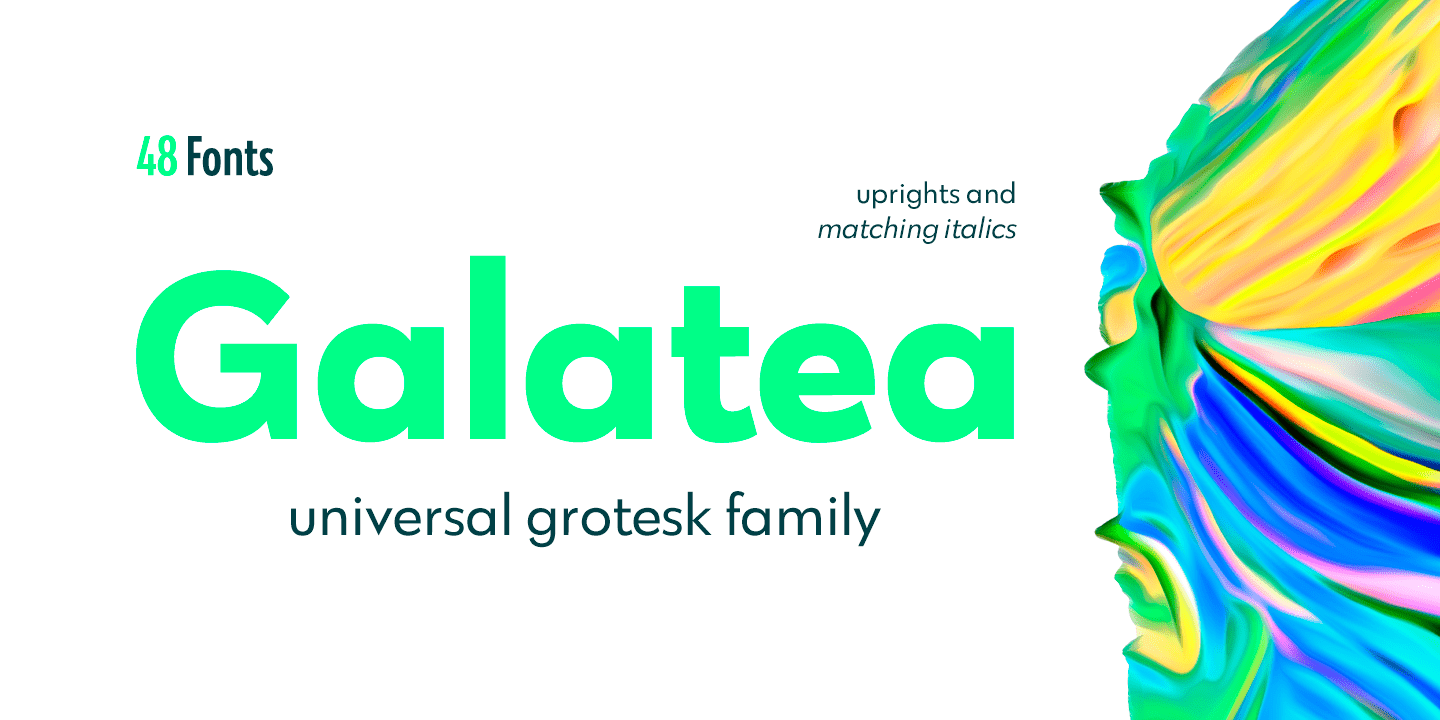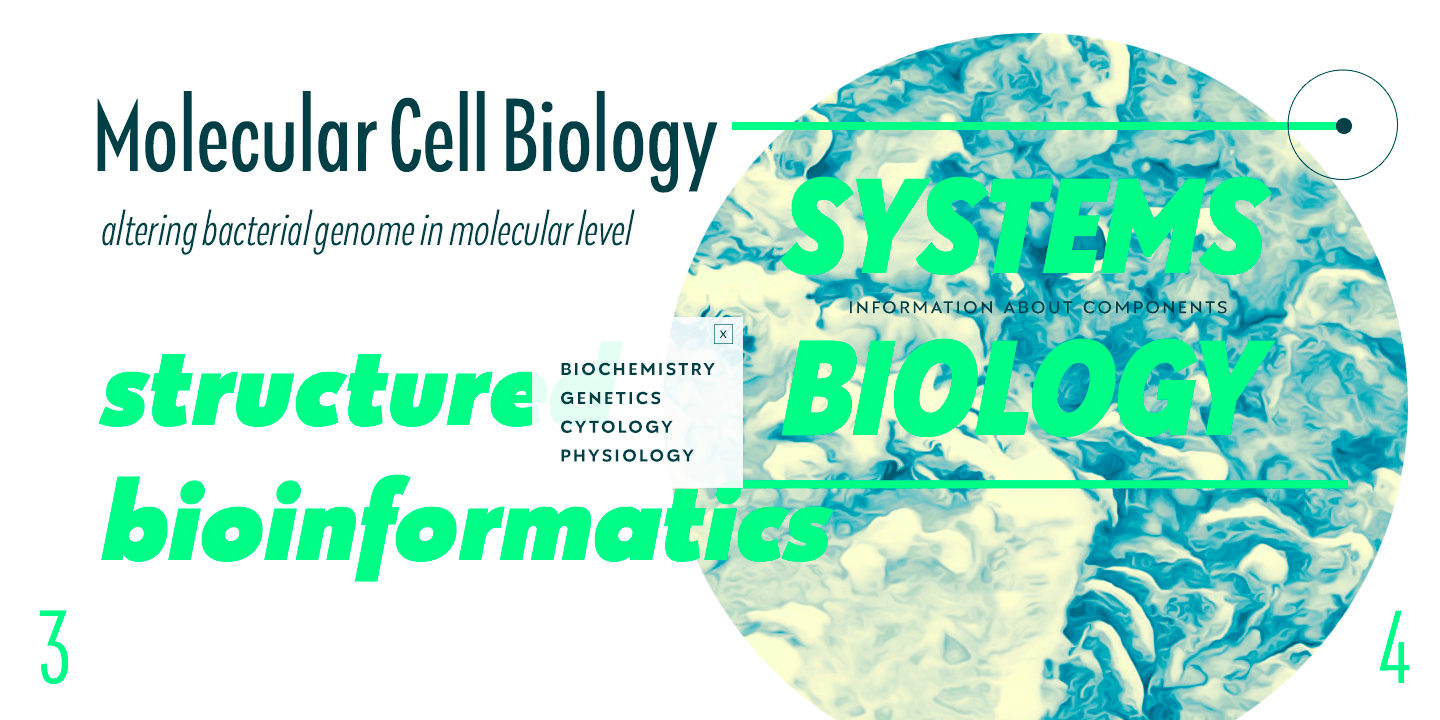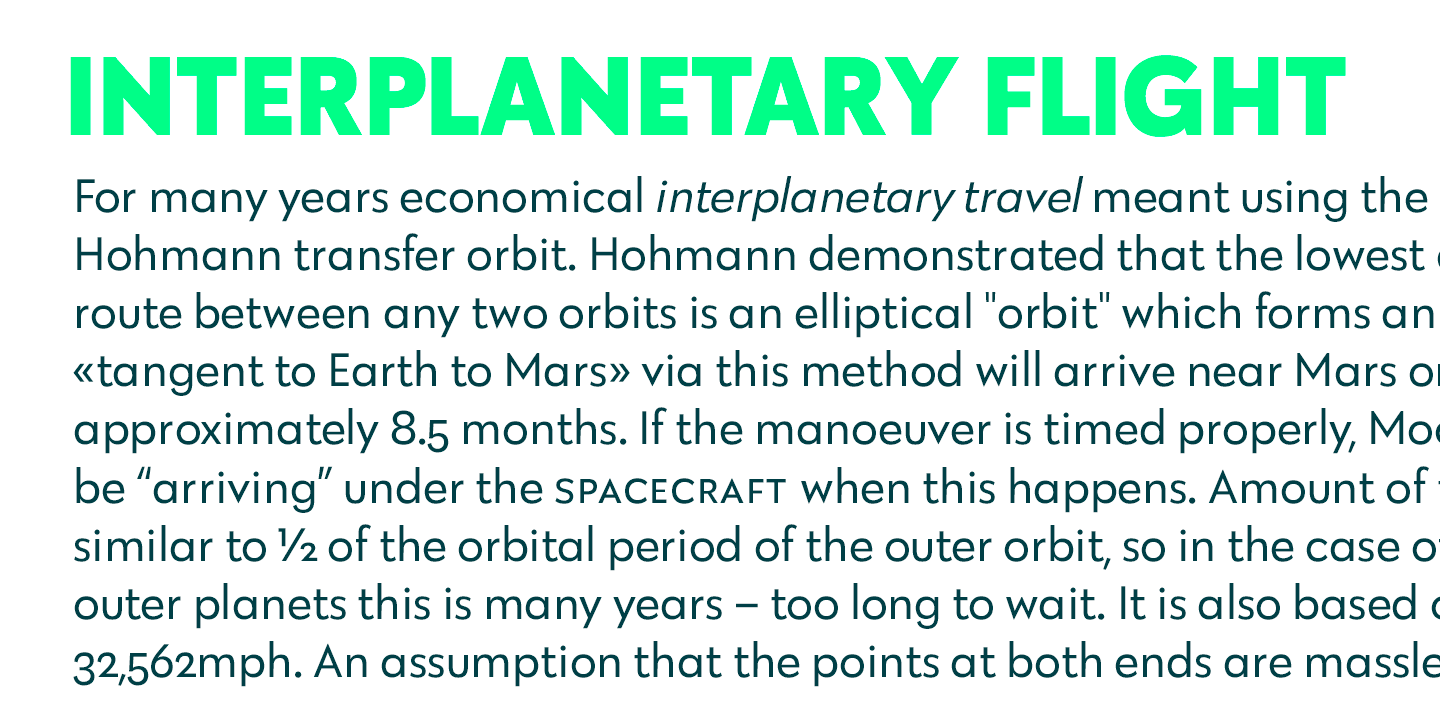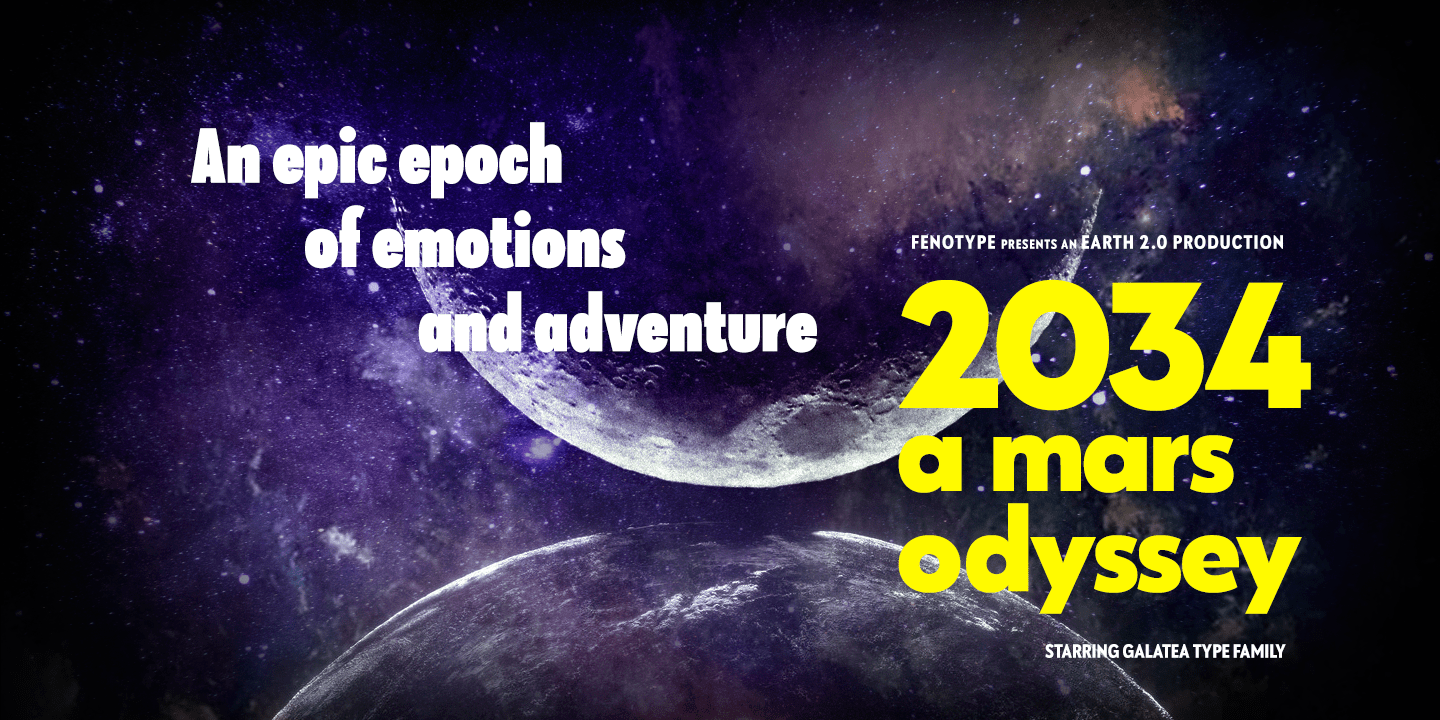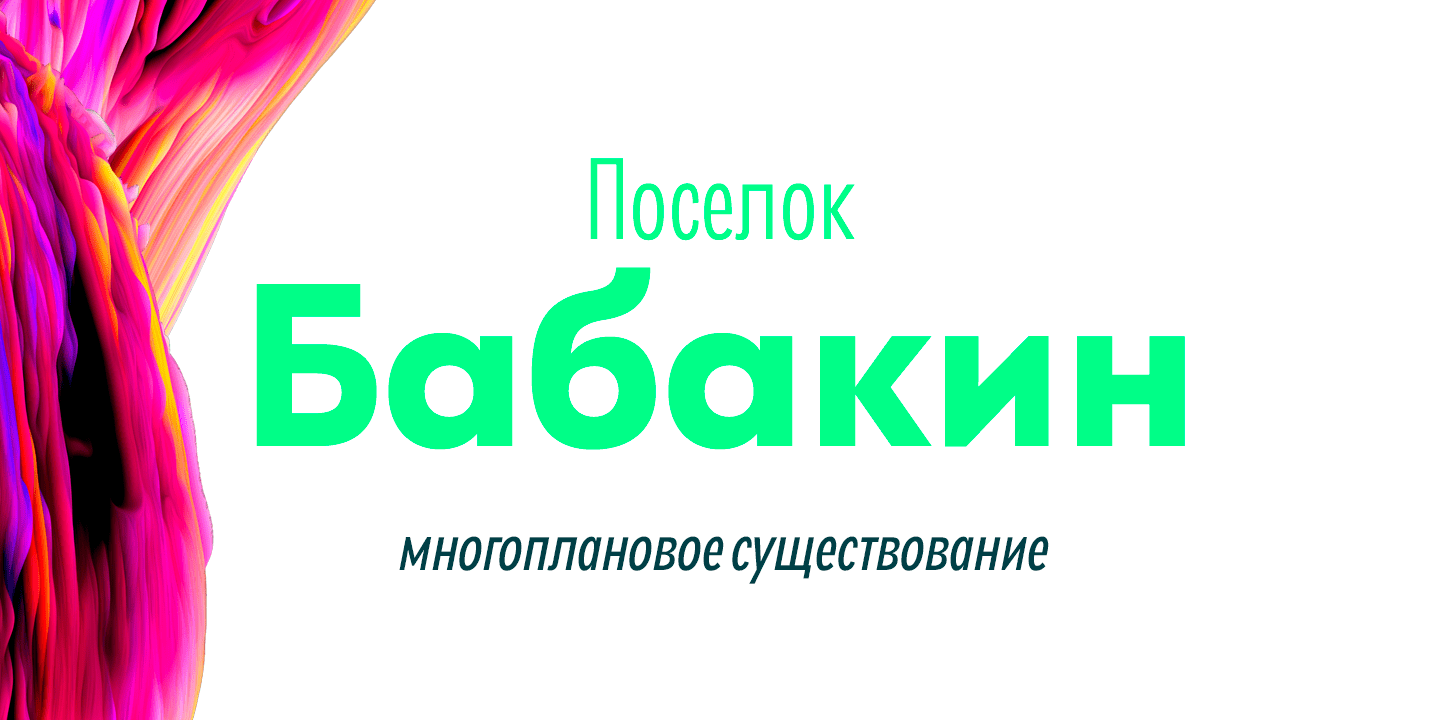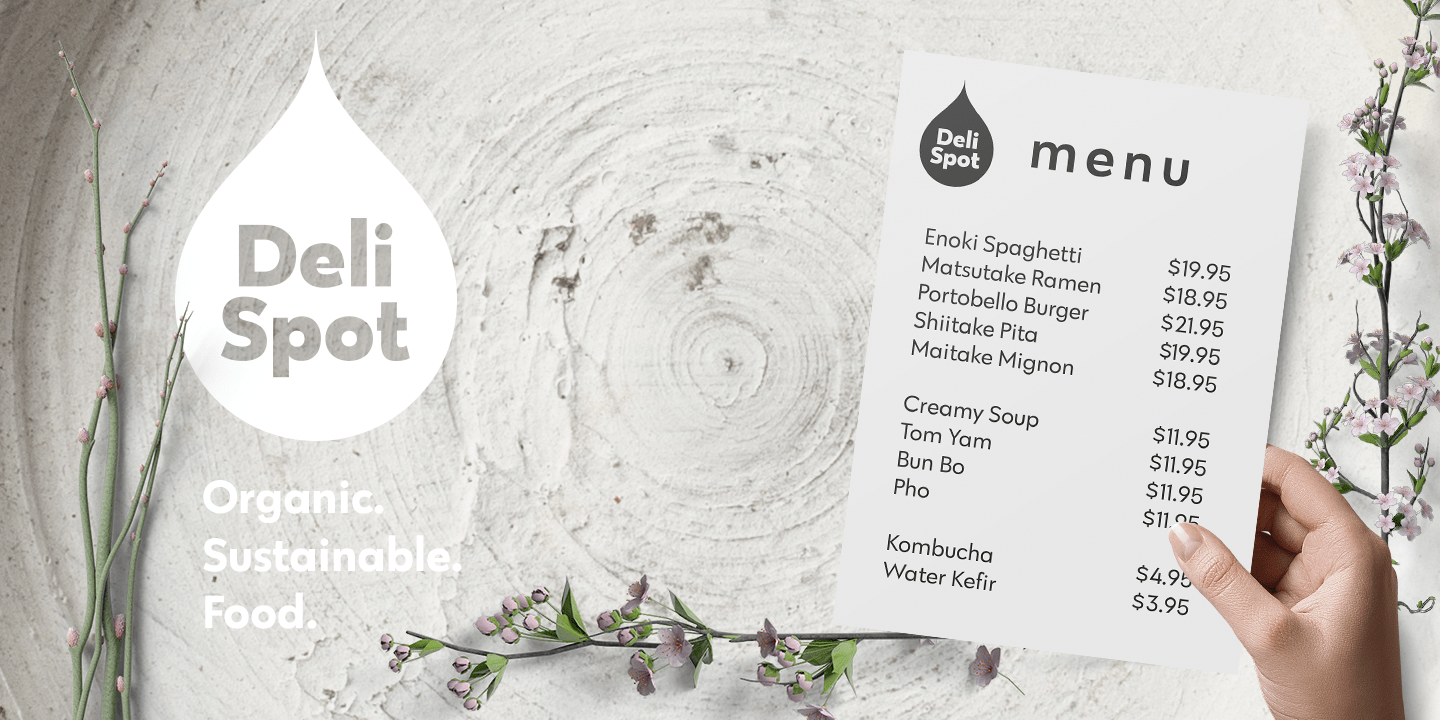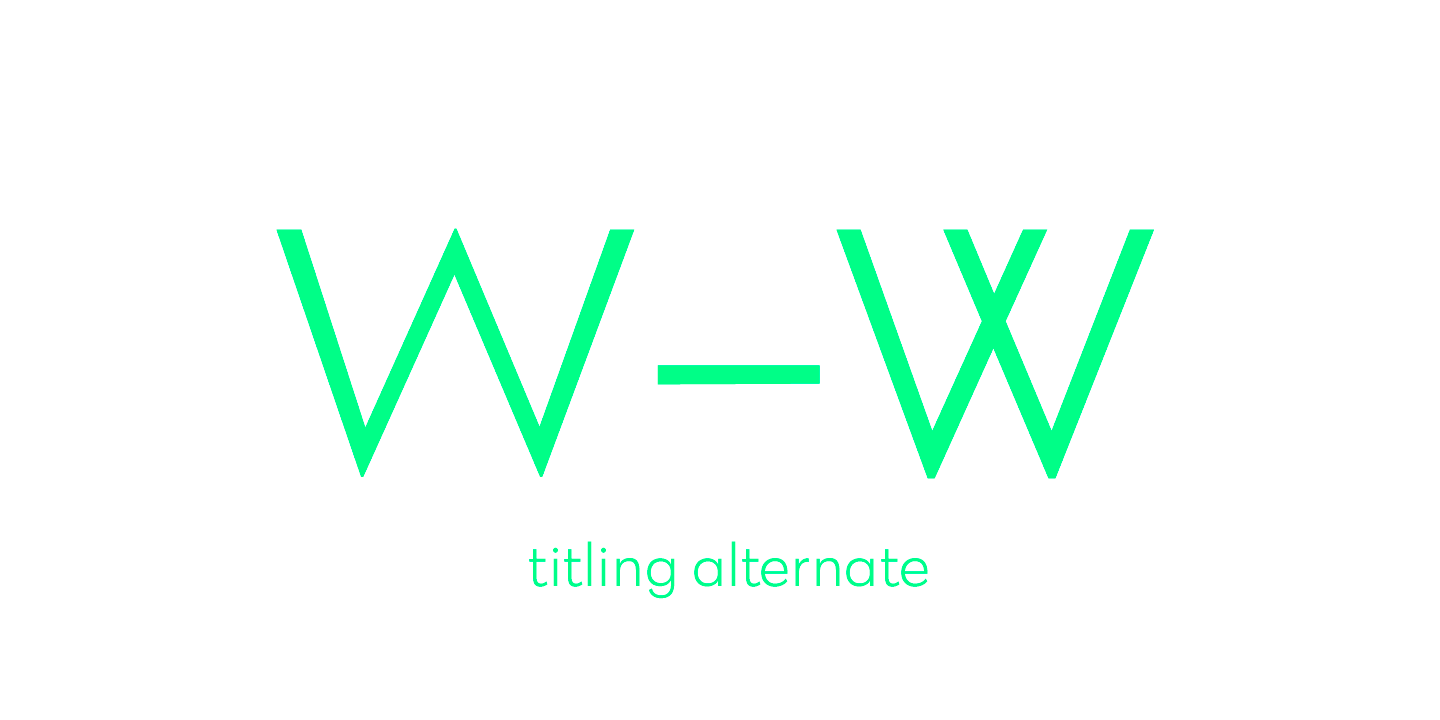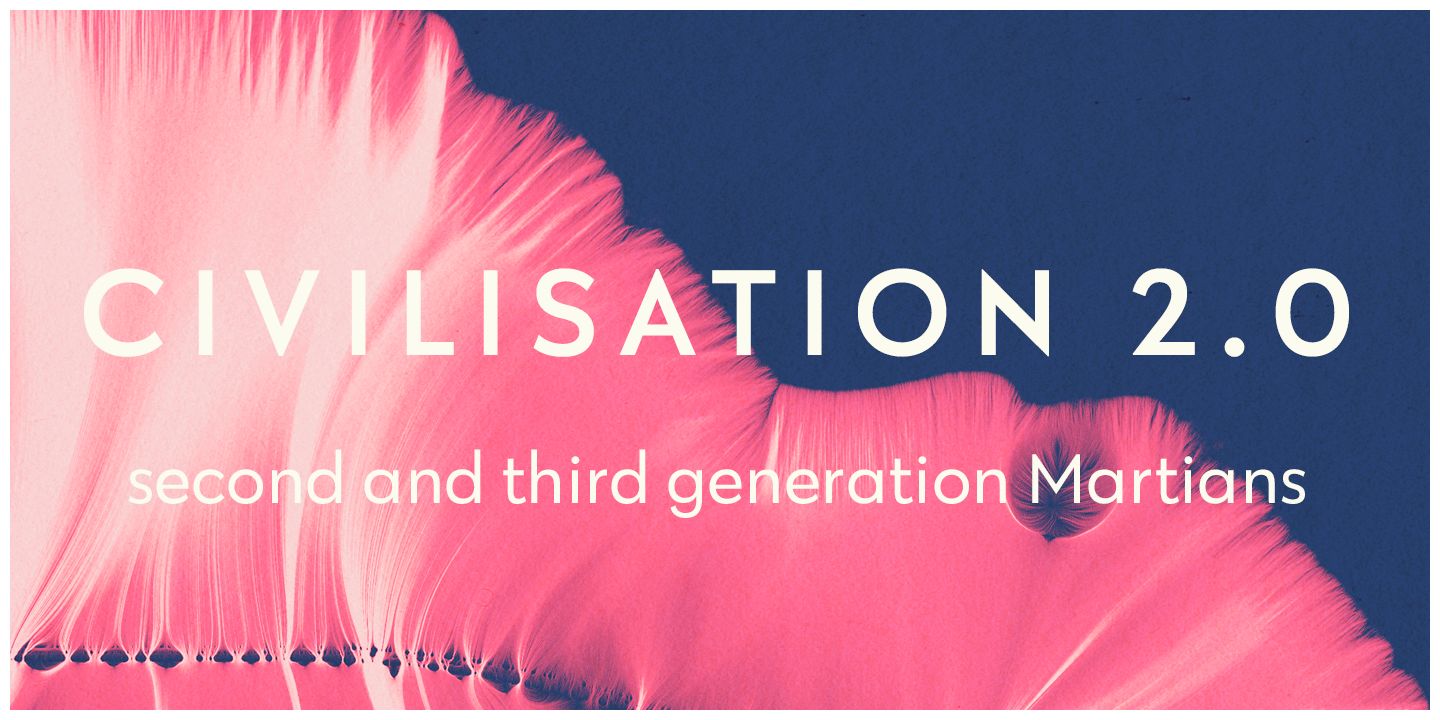
Galatea
Galatea is a universal sans serif family ? clean and timeless. Both iconic and legible, Galatea is suited to cover many needs from brand identities to editorial design, advertising, logos and beyond. Cyrillic characters are featured and a wide range of languages is supported.
Open Type features are abundant ? from built-in small capitals to various numeral styles (linear and old style; tabular and proportional, subscript and superscript).
Galatea comes in three widths ? each featuring eight weights and corresponding italics.